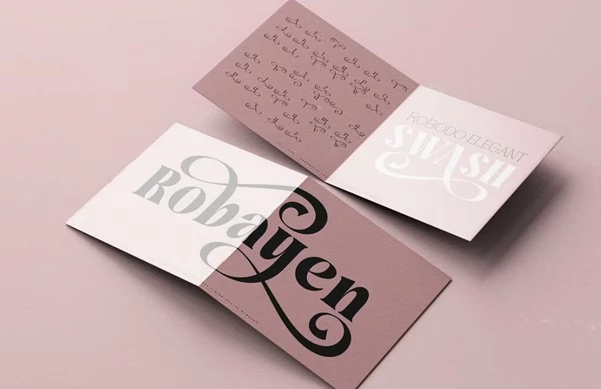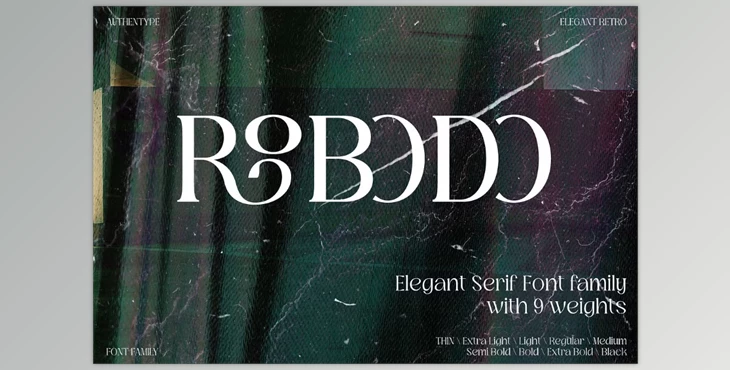
The Robodo Serif Font Family is an elegantly crafted typeface collection designed for a wide array of design applications. With nine distinct weights, it offers a versatile range that caters to various typographic needs. The font family strikes a perfect balance between classic sophistication and modern readability, featuring beautifully curved serifs and a well-rounded structure. Its flexibility makes it an ideal choice for both print and digital design, providing designers with the tools to create stunning, professional projects.
"Robodo Serif Font Family" Sample:
Some great features of Robodo Serif Font Family Creative Market - 92031108:
- Nine Weights: Includes Thin, Extra-Light, Light, Regular, Medium, Semi-Bold, Bold, Extra-Bold, and Black for a broad range of typographic choices.
- Extensive Character Set: Standard uppercase and lowercase letters, numerals, punctuation, and ligatures. It also includes stylistic sets 1 & 2 and swash characters.
- Multilingual Support: Includes support for languages with characters like ä, ö, ü, Ä, Ö, Ü, ß, ¿, and ¡.
This font family is a comprehensive, flexible tool for designers who seek both elegance and functionality in their typography.